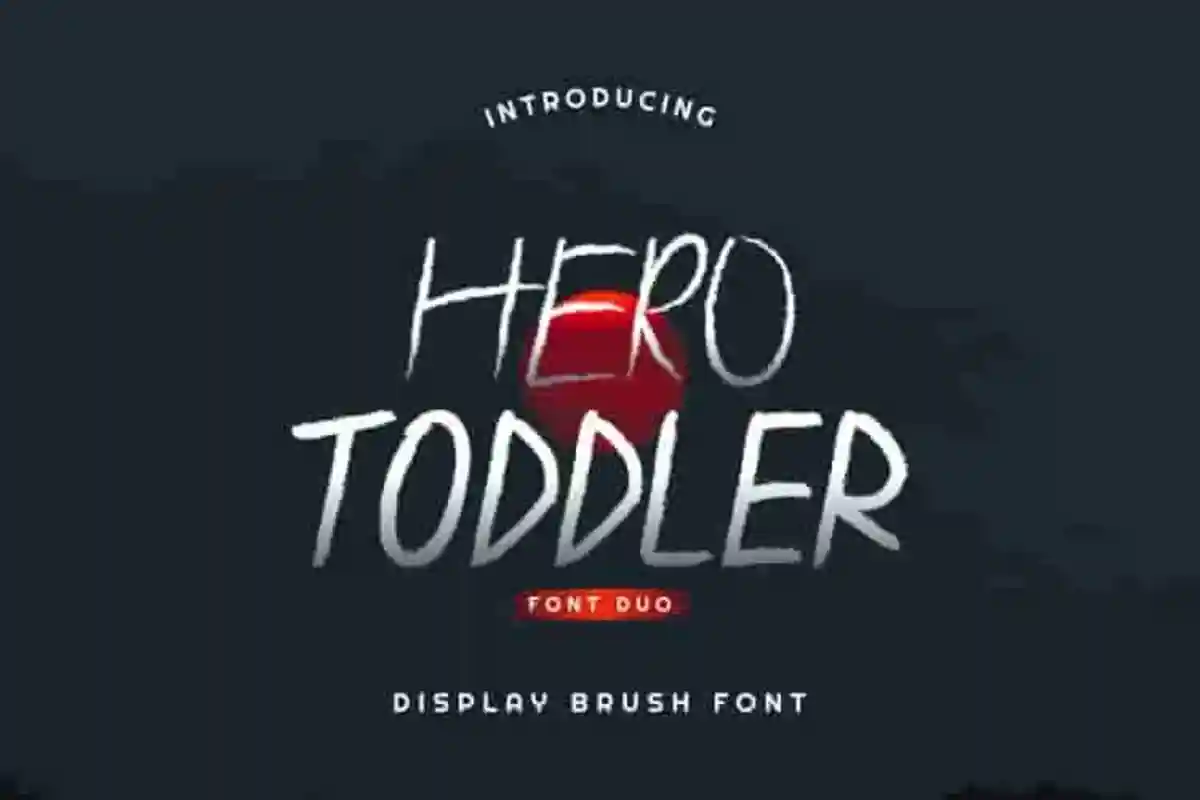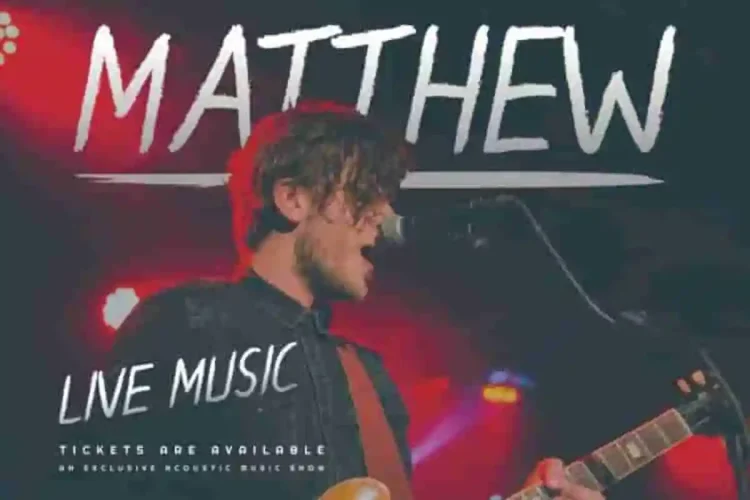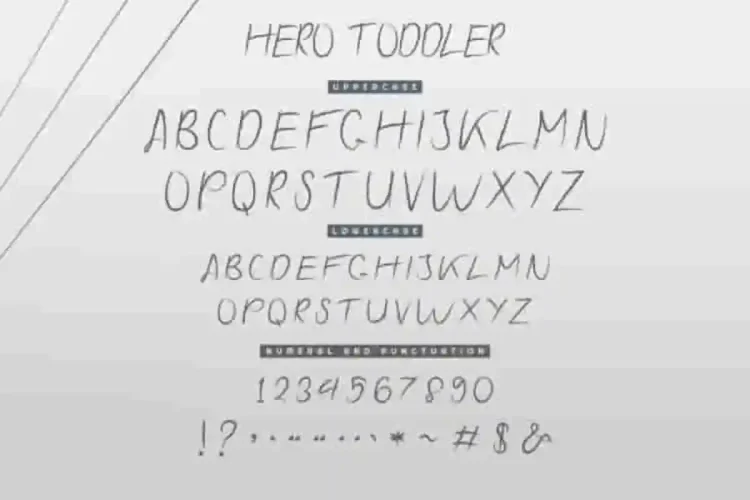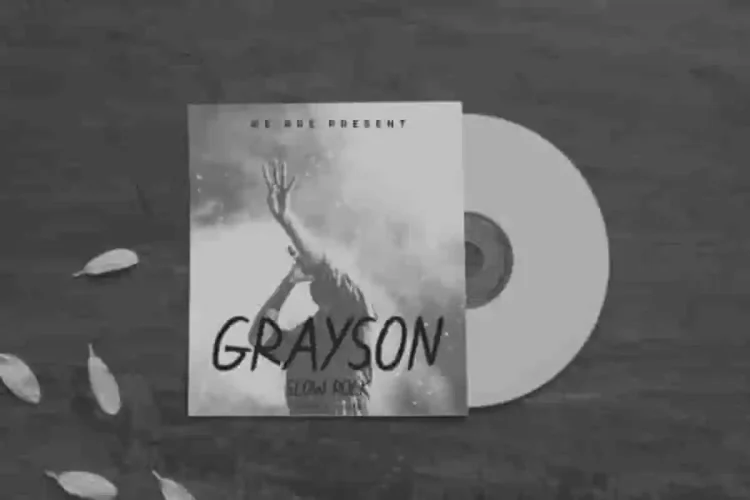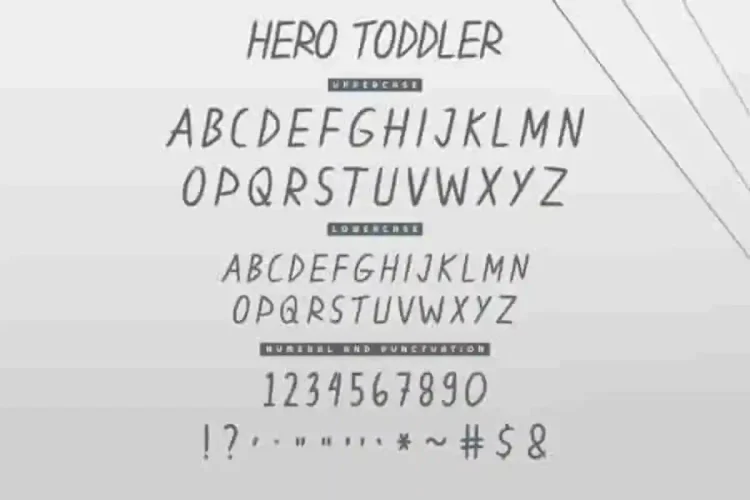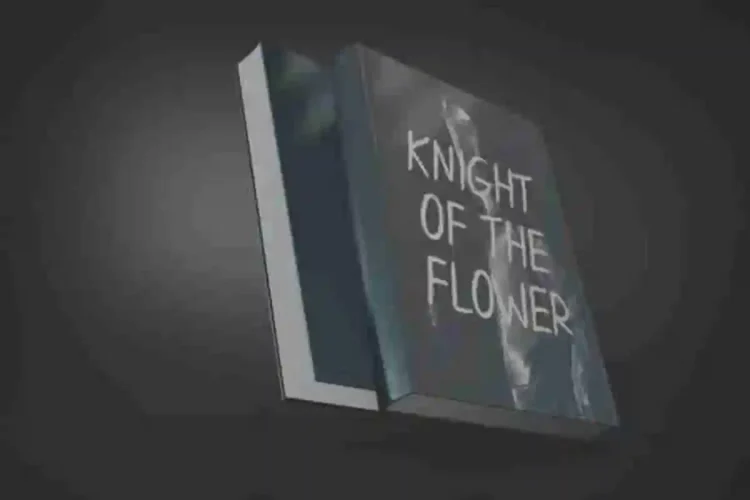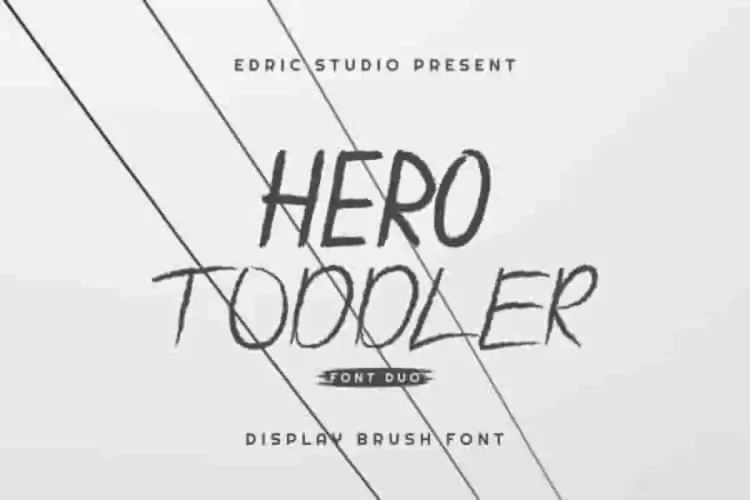
Hero Toddler Handwritting Brush Font Duo
Please welcome! Our newest creatiob : Hero Toddler Handwritting Brush Font Duo
This is a Font Duo, handcrafted from our Studio here in Indonesia. The artists/designers of this beautiful tyeface are Yasri, Sarah and Ali.
Hero Toddler Handwritting Brush Font Duo is an exclusive font family with two different styles. This font has a stunning characters set, perfectly managed with well spaced and kerning.
Hero Toddler Handwritting Brush Font Duo will be great for any projects including : branding, logo, stationery, business card, signage, flyer, brochure etc. Almost all industries will be match for this typeface: events, movie, games, poster, signage etc.